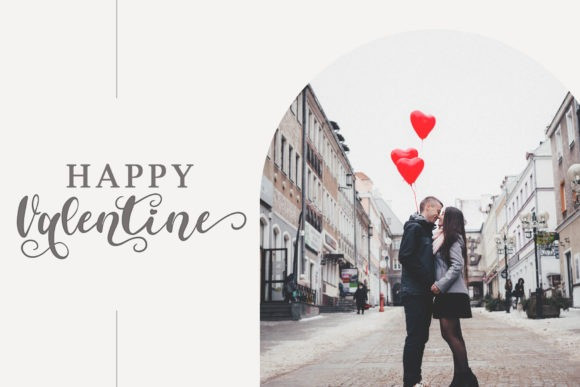
Valentine Peace Calligraphy Font
Valentine Peace is a delicate and elegant handwritten font. It features dainty and chic characters that will look gorgeous on each of your creations. This font is PUA encoded which means you can access all of the glyphs and swashes with ease!